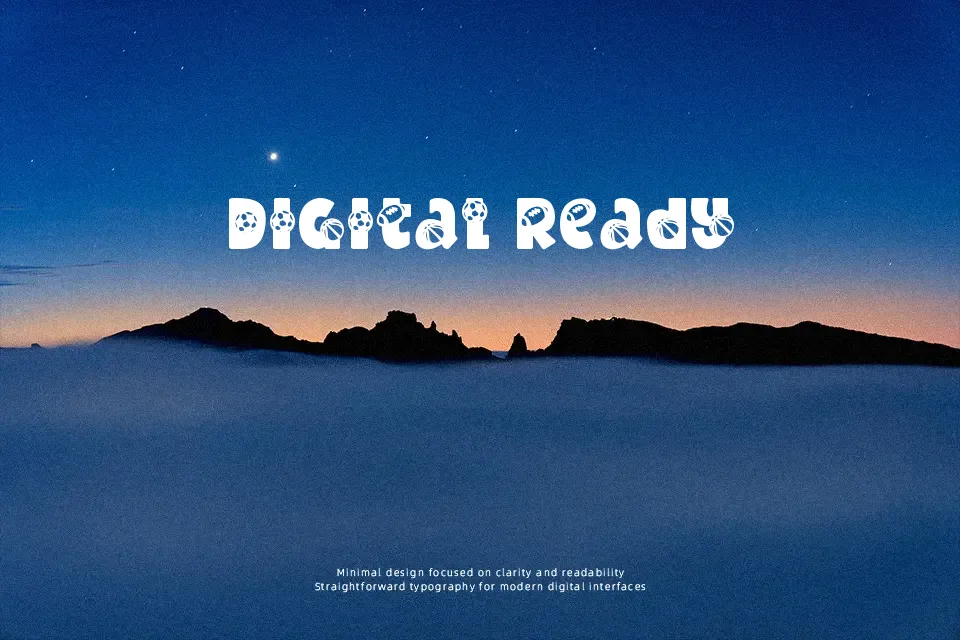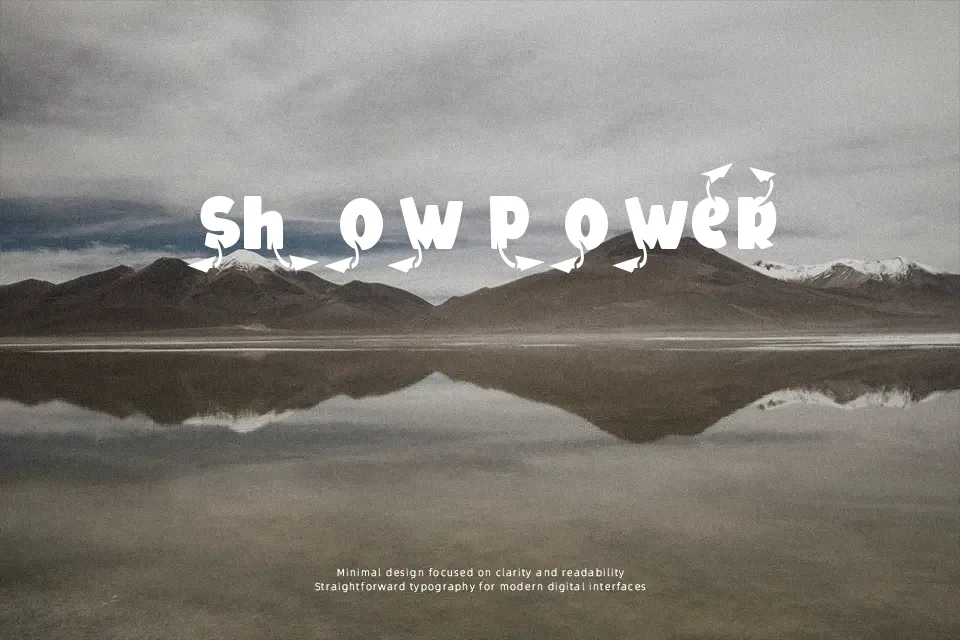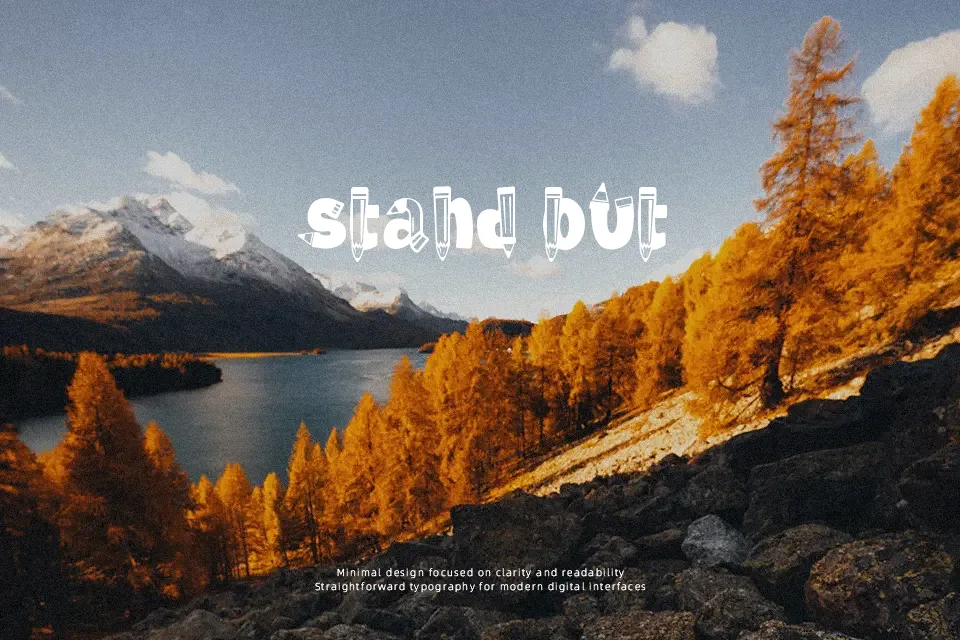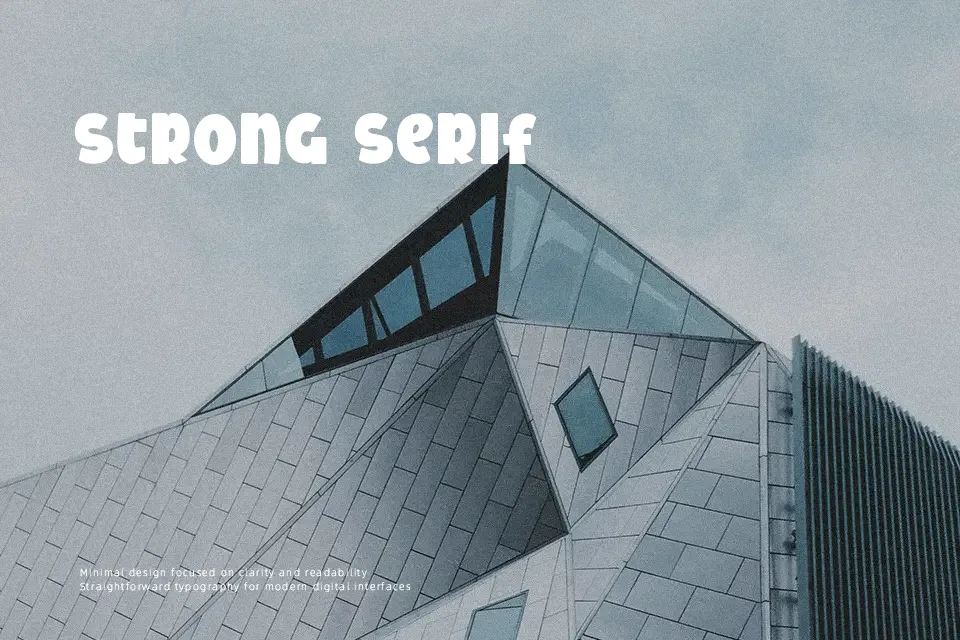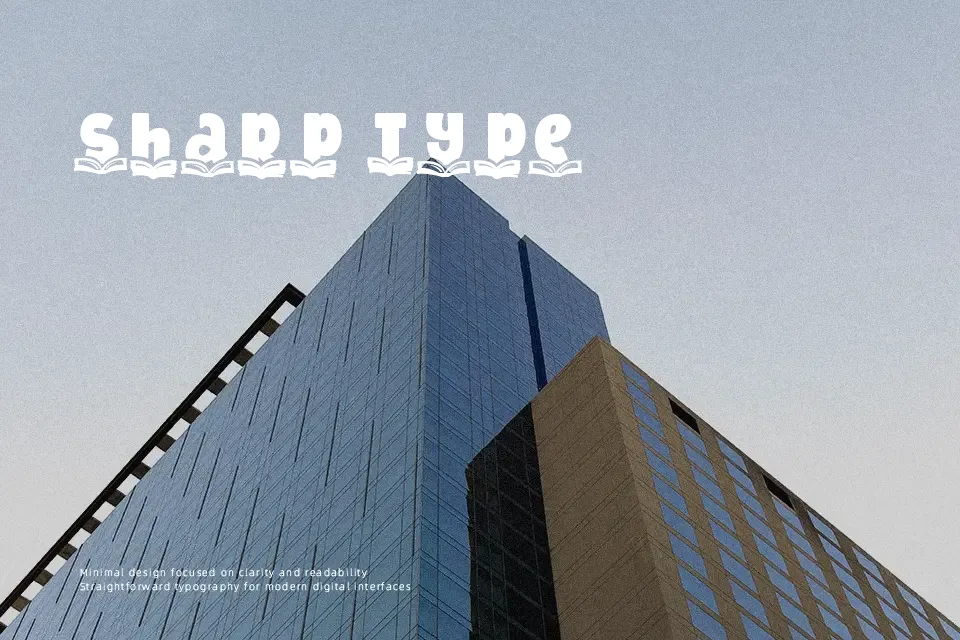
Study Symbol Font
Study Symbol Font is characterized by solid, thick letterforms and soft rounded terminals that create an immediate playful presence. The typeface maintains consistent heavy stroke weights and generous proportioning across its uppercase and lowercase glyphs. Open spacing between individual characters helps preserve silhouette clarity, making the design particularly effective for elementary classroom banners, educational mobile apps, and children product packaging. However, the decorative density and chunky proportions reduce comfort when reading extended text blocks. The letterforms perform with remarkable impact in short display headlines, though small captions quickly lose legibility due to minimal counter space.
Best For: children book covers,classroom poster headings,educational game branding,elementary learning worksheets
Not Ideal For: continuous paragraph text,legal documents,corporate financial reports,small interface labels
Perfect for branding, headline, and kids, with a bold and cartoon style.